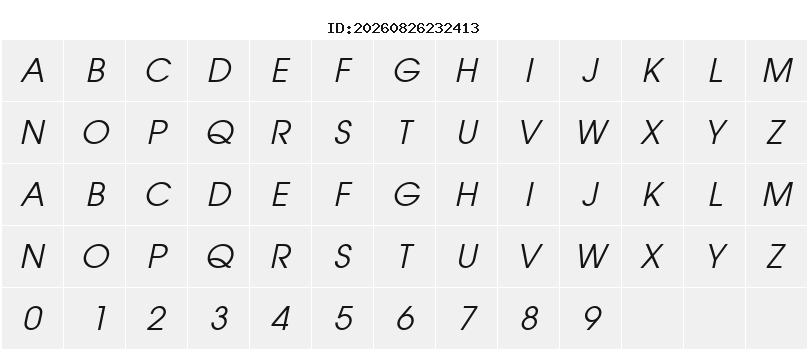
About .VnAvantH.ttf
.VnAvantH.ttf is a modern, elegant sans-serif font designed for ultimate readability and visual harmony. Perfect for branding, headlines, web design, and print materials.